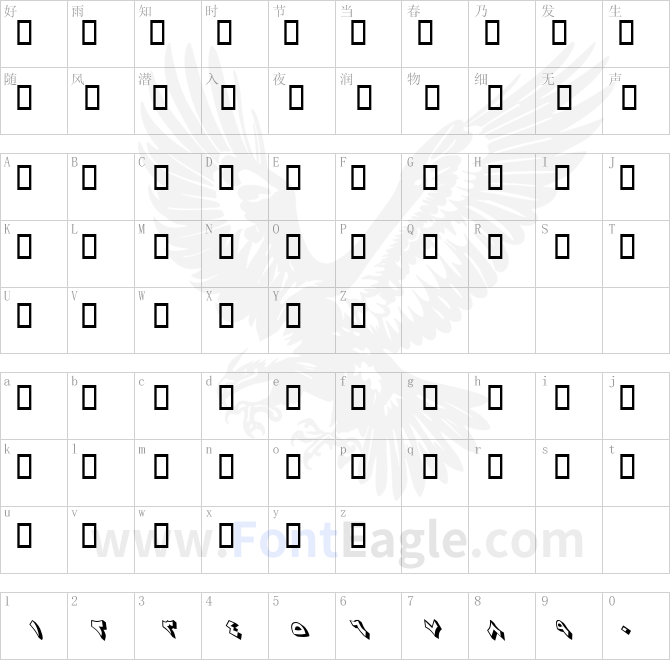
- Font name:B Zaman
B-Zaman is a great font, widely used in graphic design, single-page menu design, poster design and other fields, and is deeply loved by designers.B-Zaman download.